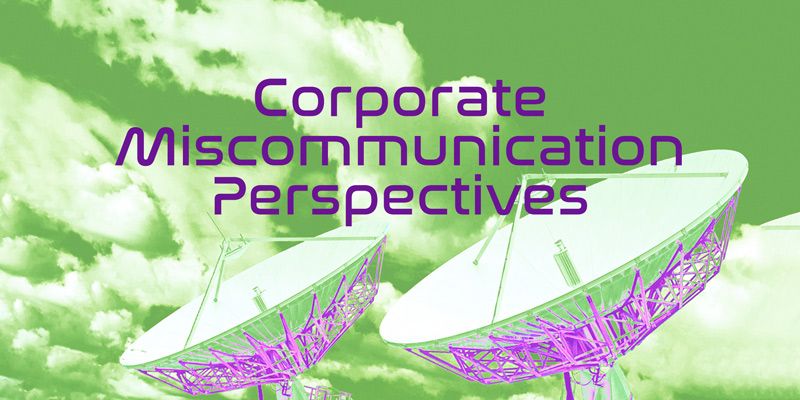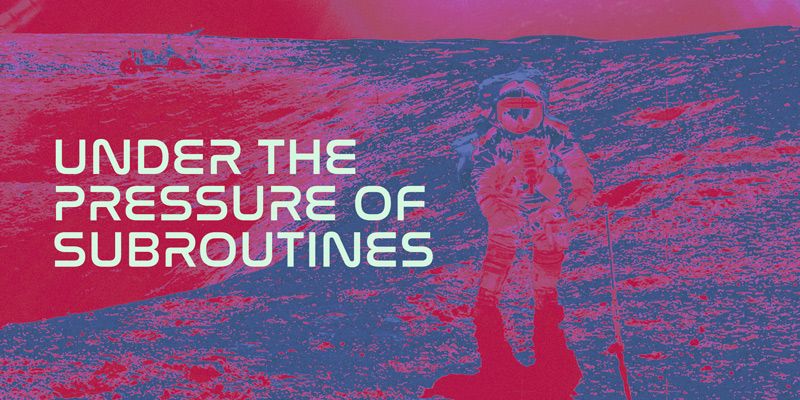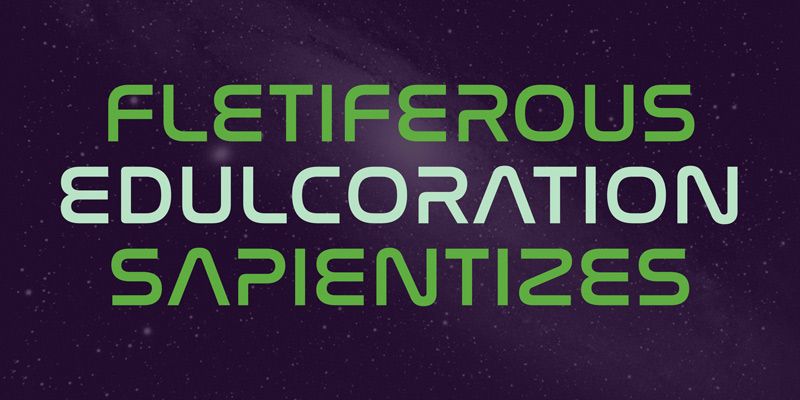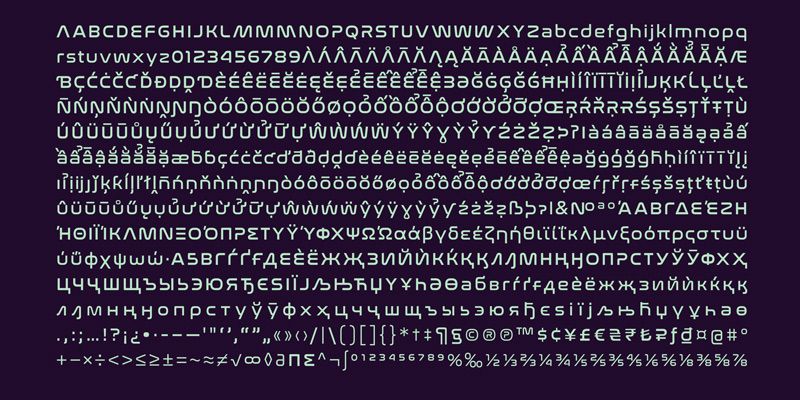
Nasalization is a wide, ultramodern sans serif that nods to the 1975 NASA logotype. Smooth curves and long horizontal movement make a short word feel streamlined, while the familiar letter shapes keep a product name readable. It suits spacecraft fiction, aerospace exhibits, experimental vehicles, electronic instruments, or sporting equipment that calls for a clean technical signature. Its space-age reference is unmistakable, giving a prominent name or heading an immediate sense of speed and exploration.